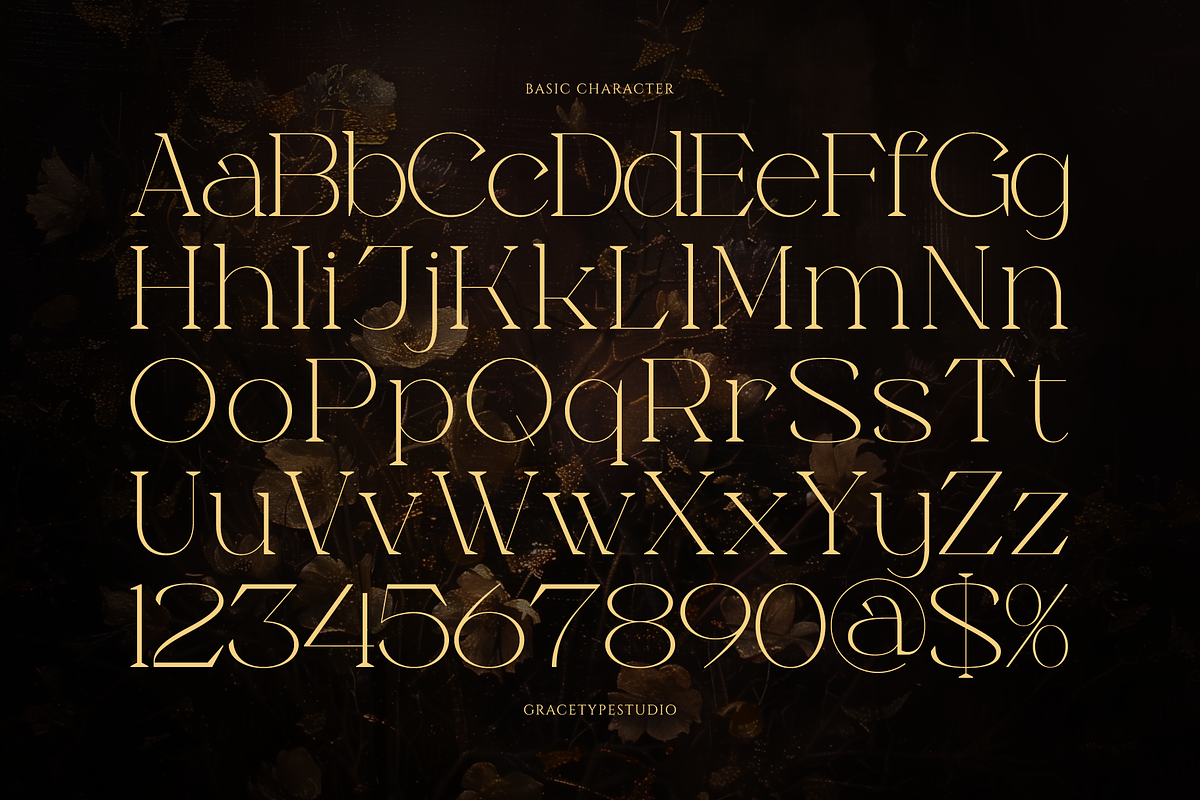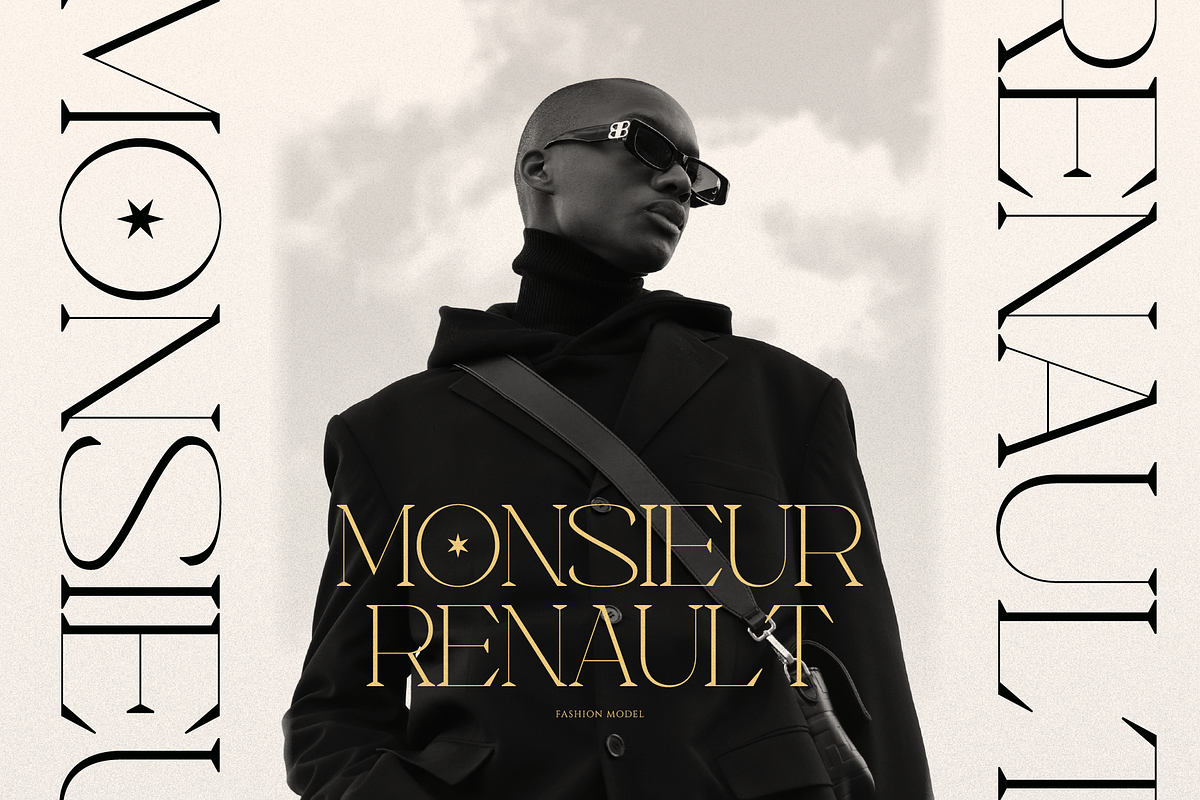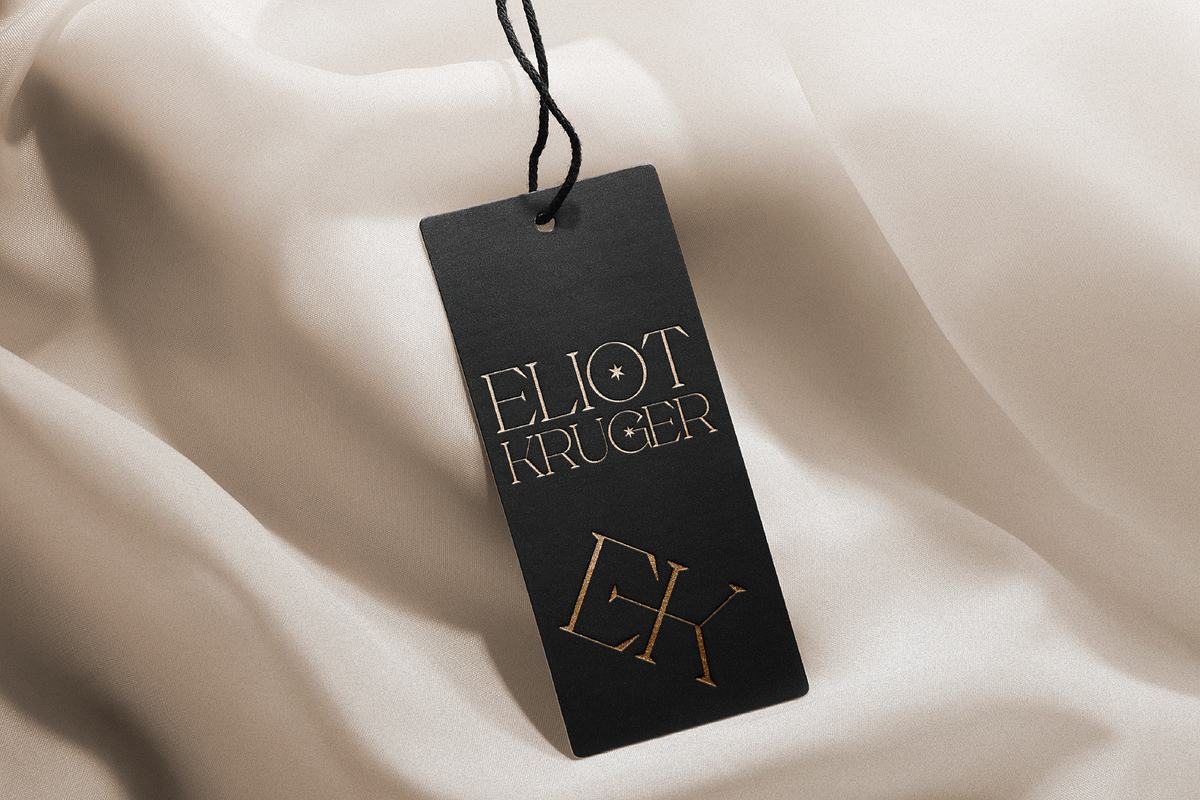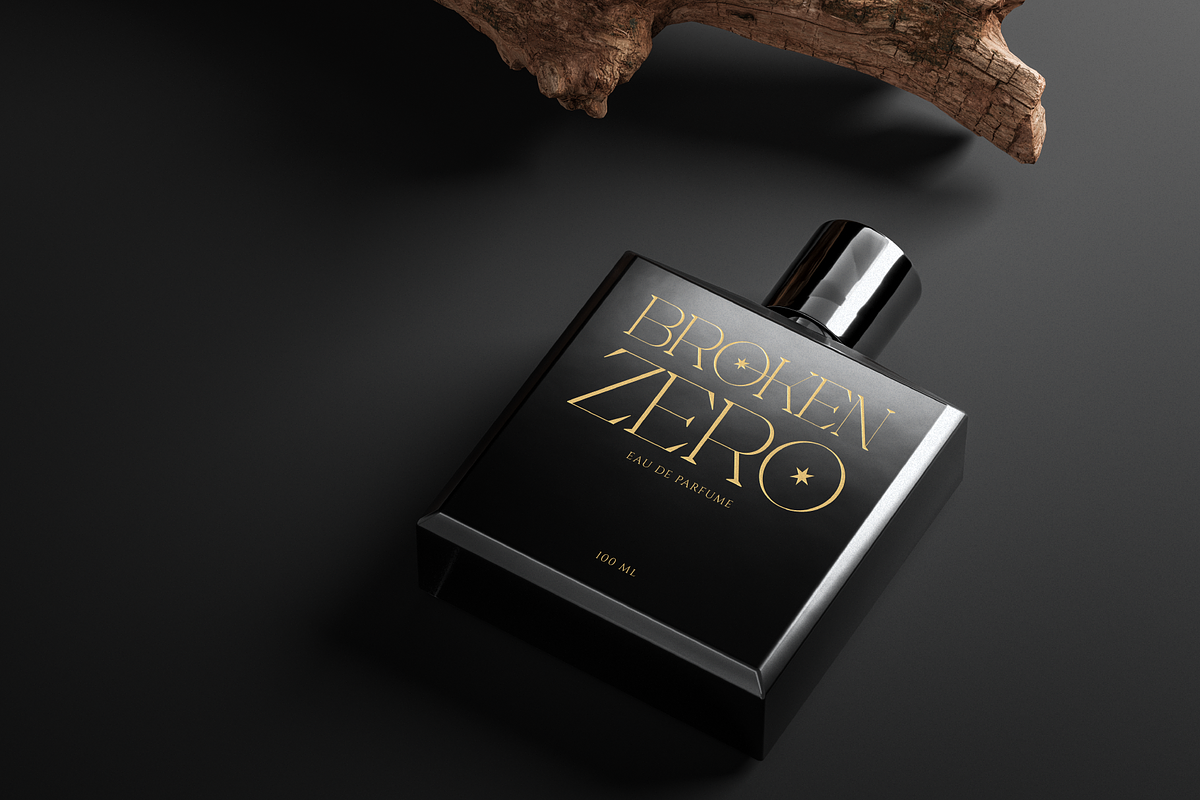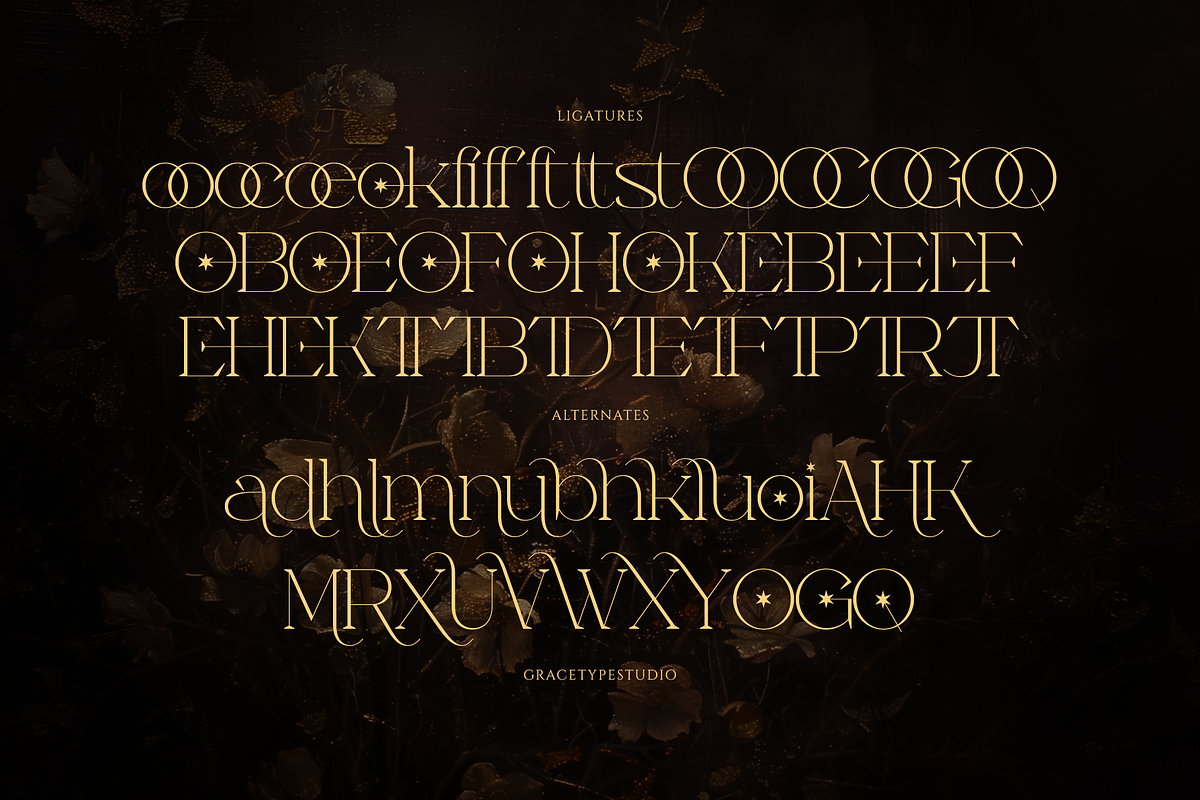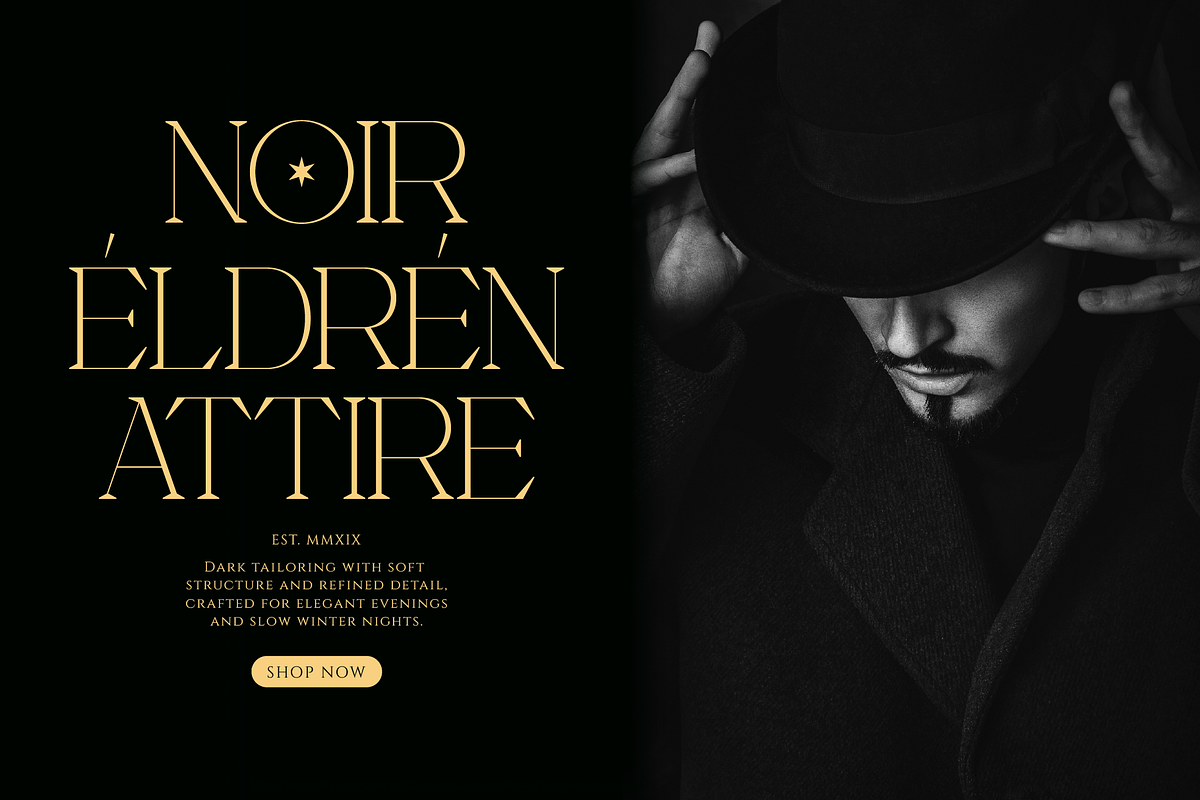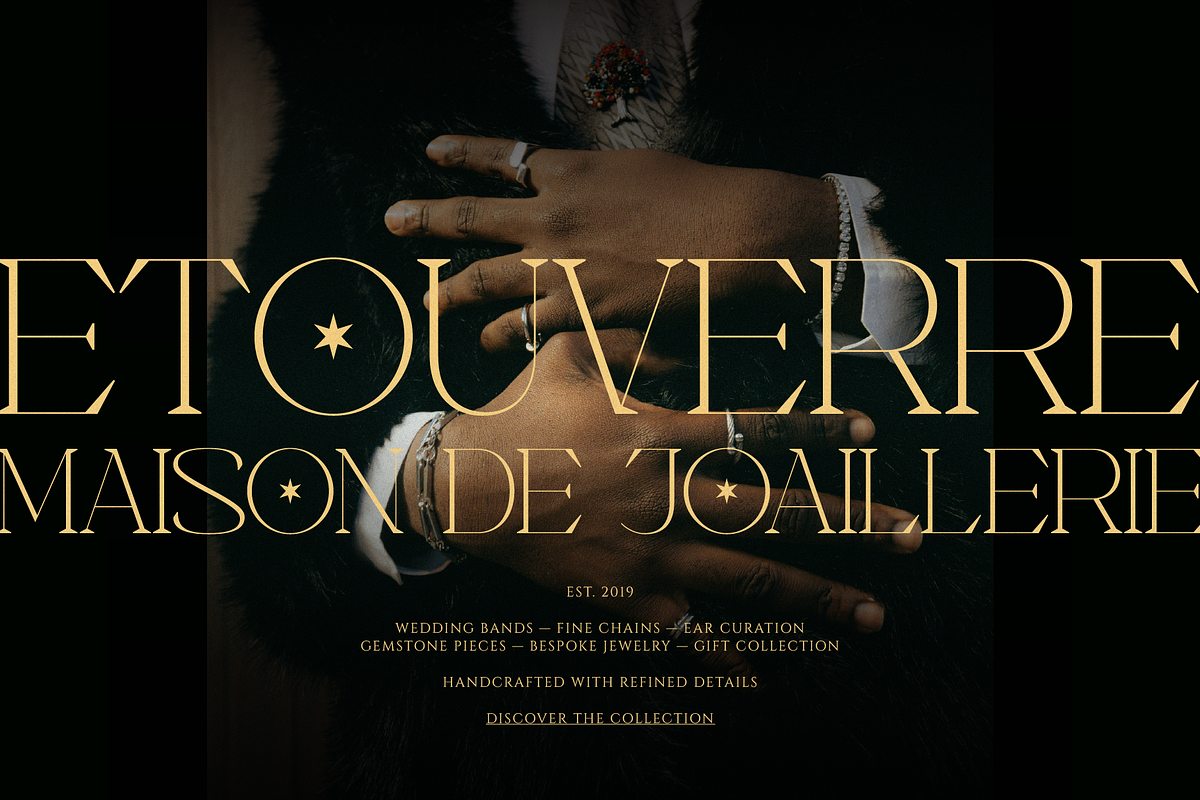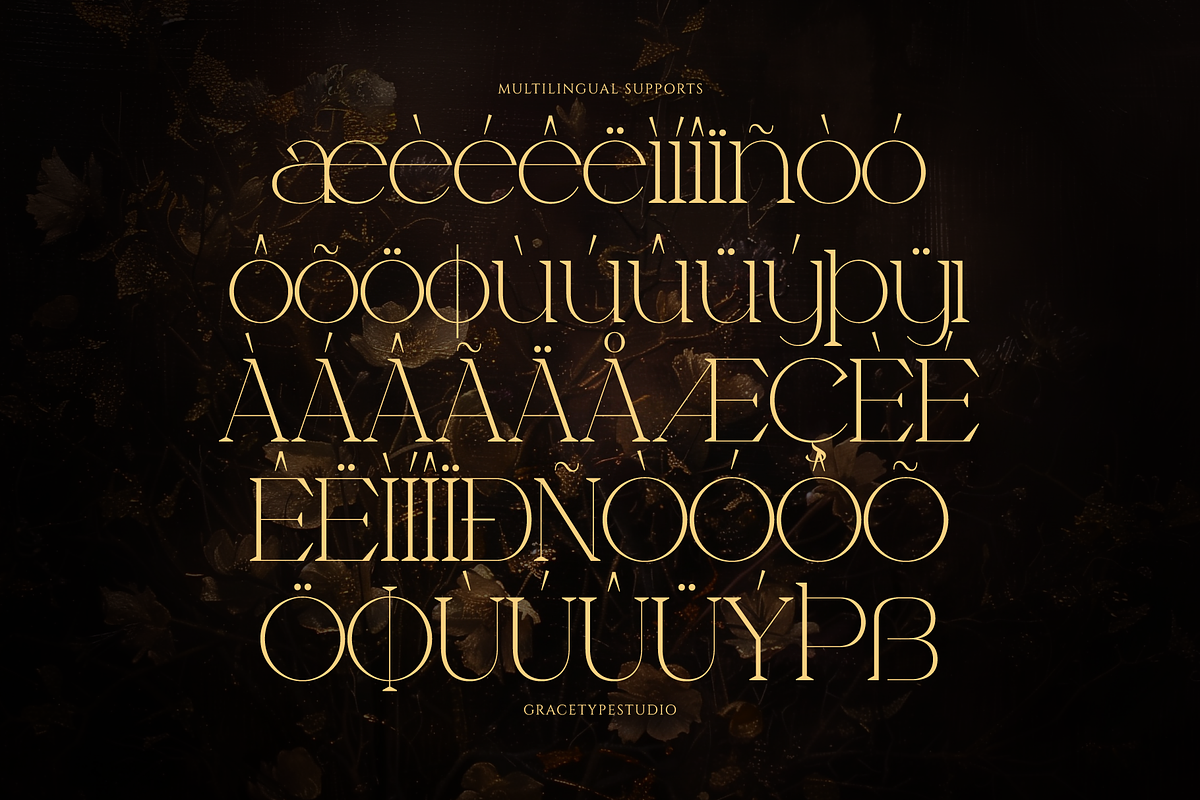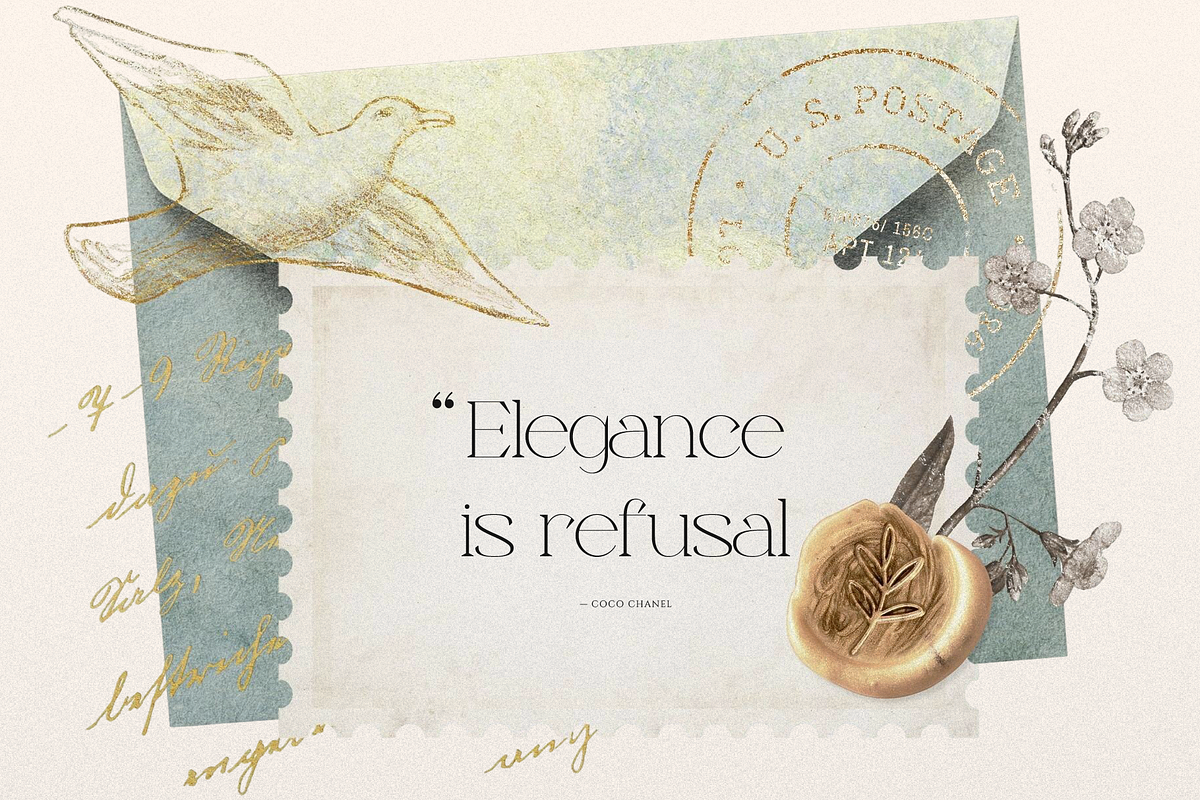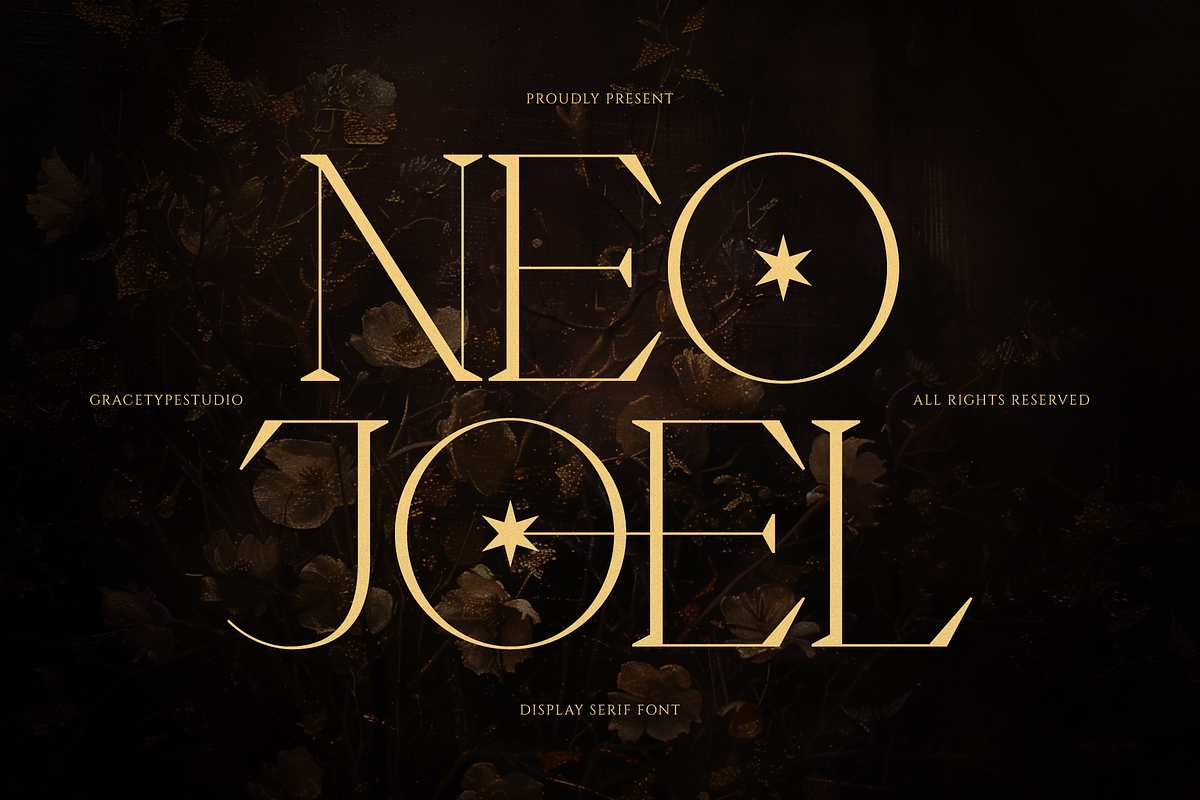
Neo Joel | Display Serif
Neo Joel | Display Serif, from Gracetypestudio, suitable for any projects such as: logos, branding projects, homeware designs, product packaging, mugs, quotes, posters, shopping bags, t-shirts, book covers, name card, invitation cards, greeting cards, label, photography, watermark, special events, and all your other lovely projects that need a Serif taste.
Alternate and Ligature
Fonts include multilingual support